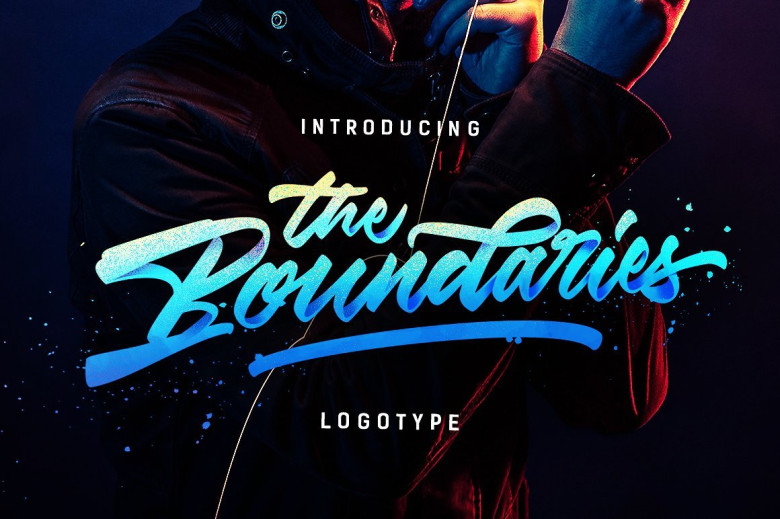
The Boundaries Logotype
Are you designing a logo template? I would like to introduce to you a logotype style, it will help your design work quickly, and promote your brand prominently. Introducing The Boundaries Logotype! The Boundaries designed by Dirtyline Studio. The Boundaries is a handmade Clean typeface, with authentic brush imperfections, and a very bouncy baseline It has a perfectly paired complimentary marker font , and a super handy set of bonus Swash. Ideal for logos, handwritten quotes, product packaging, header, poster, merchandise, social media & greeting cards.